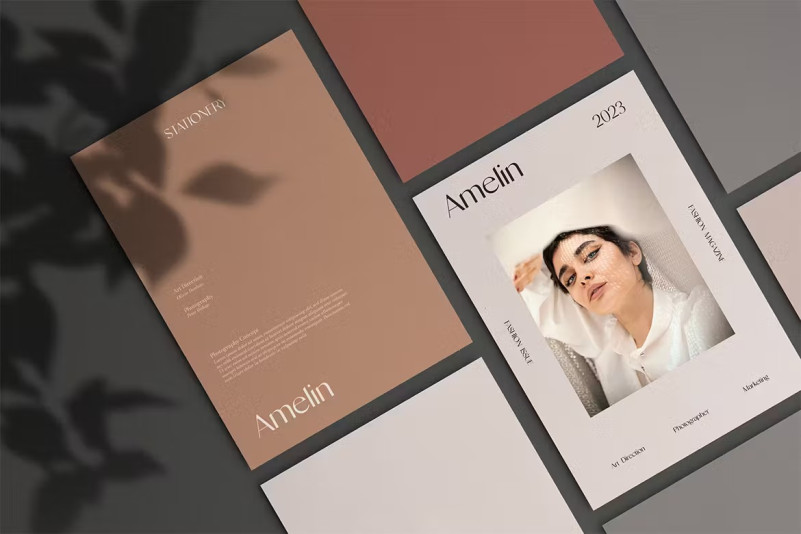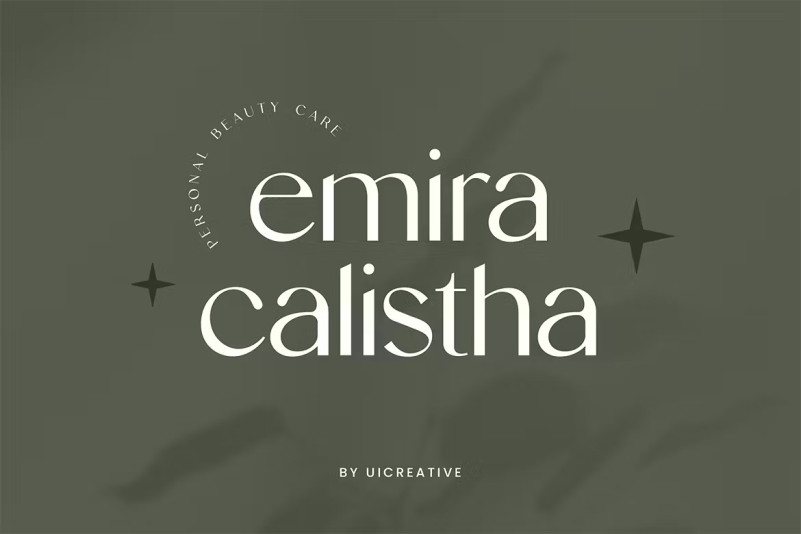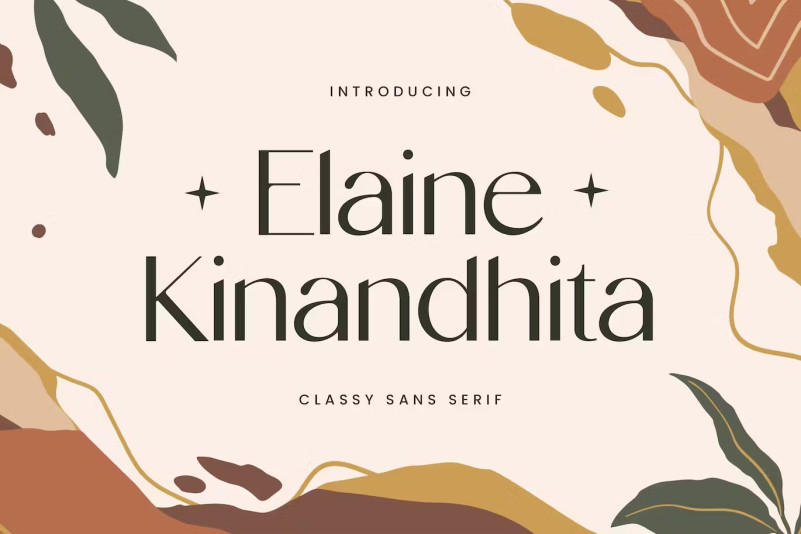
Elaine Kinandhita Font
Elaine Kinandhita Font – Classy Sans Serif Font . A modern and elegant serif font that gives the impression of beauty, class and modernity. This font is perfect for a wide variety of projects, such as signature, stationery, logo, wedding, typographic quotes, magazine or book covers, website headers, apparel, branding, packaging design, etc. Additionally, fashion-related branding or editorial design exhibits both masculine and feminine qualities.